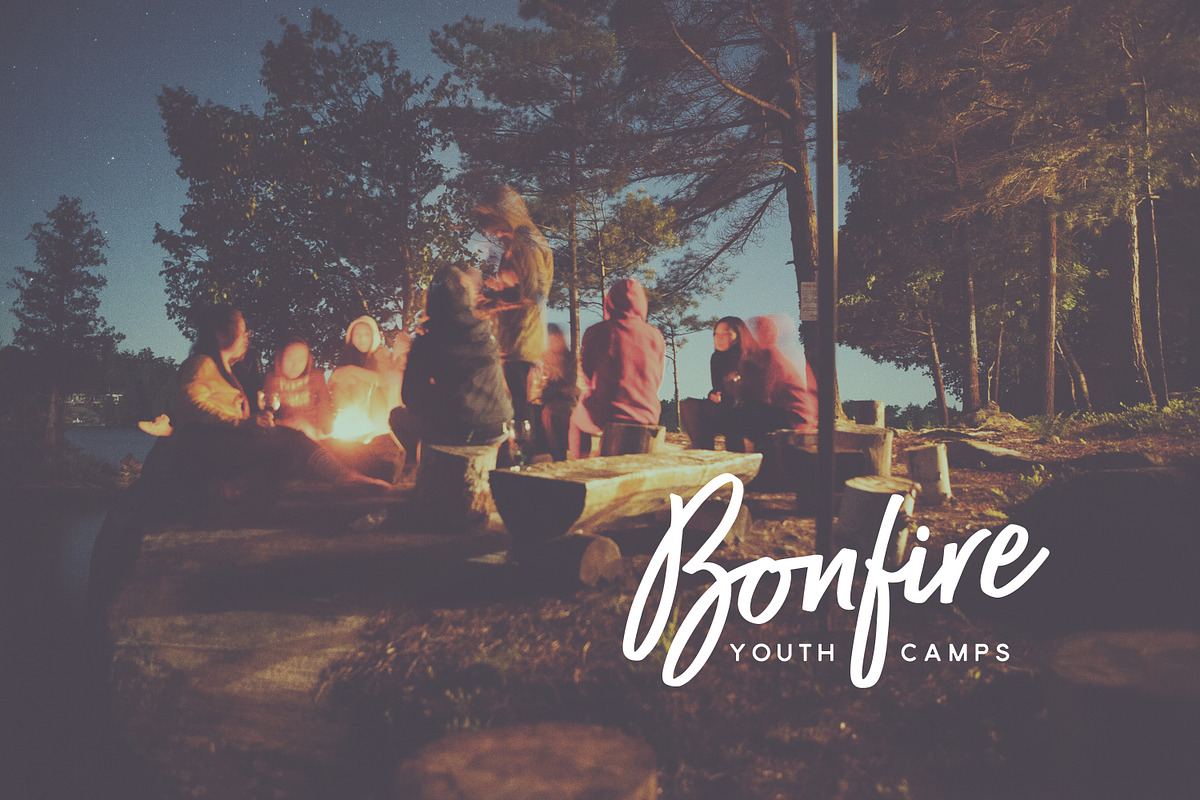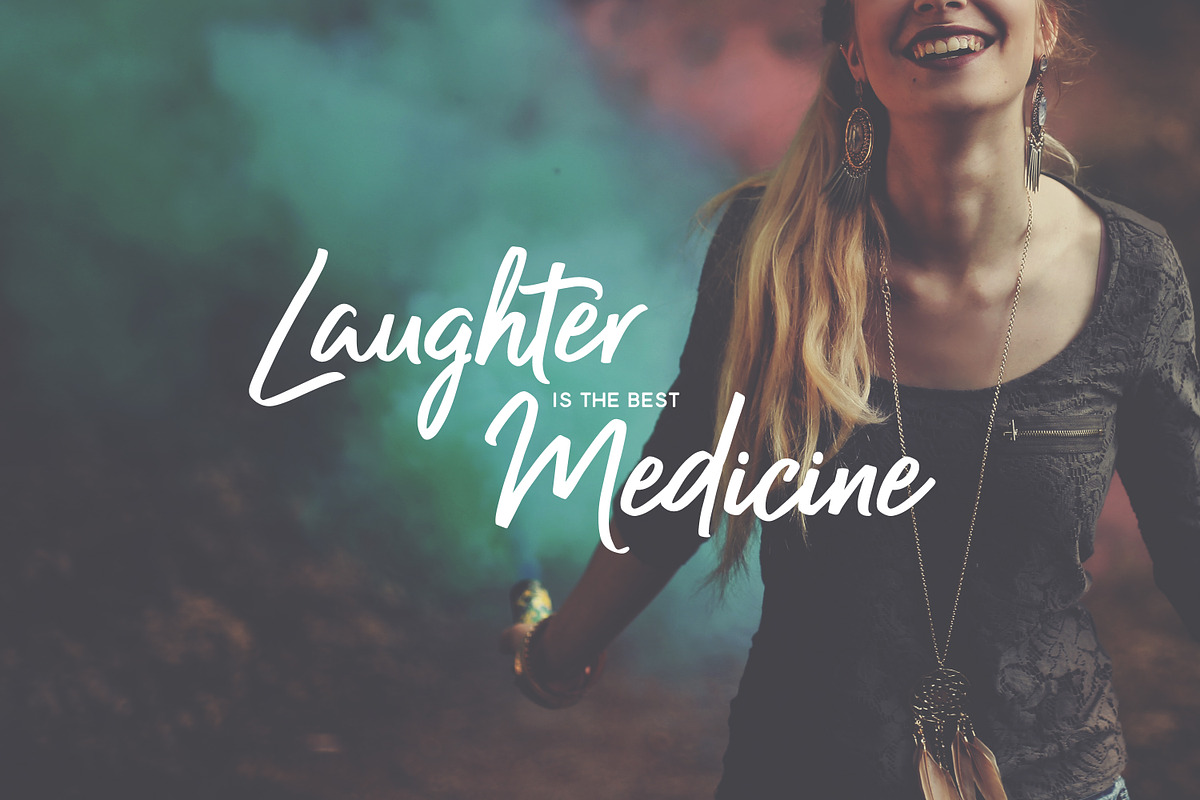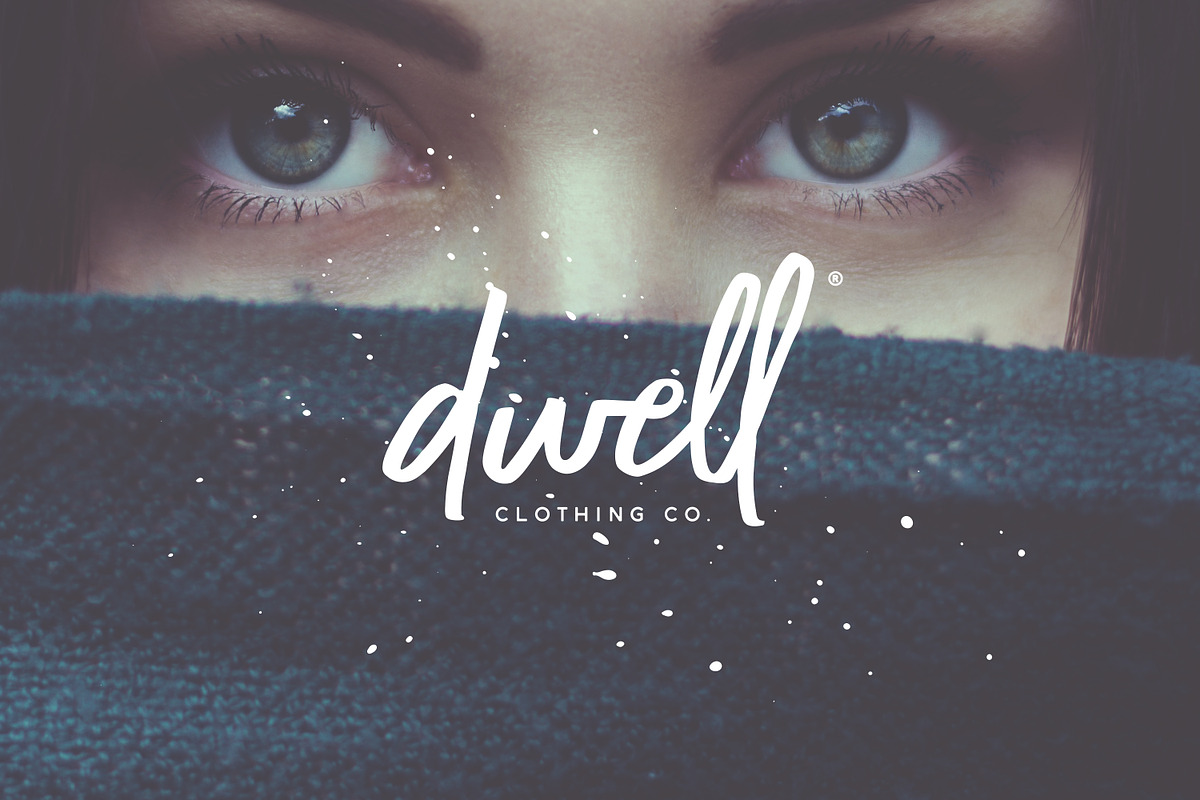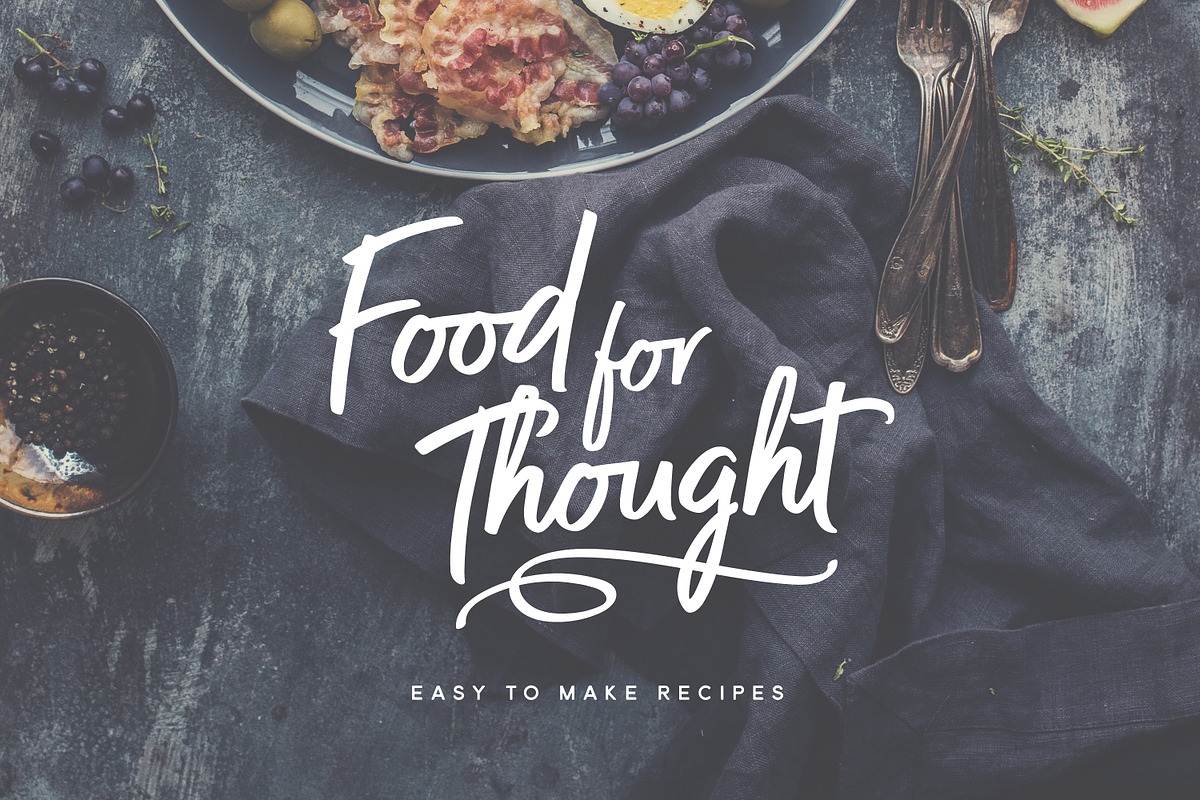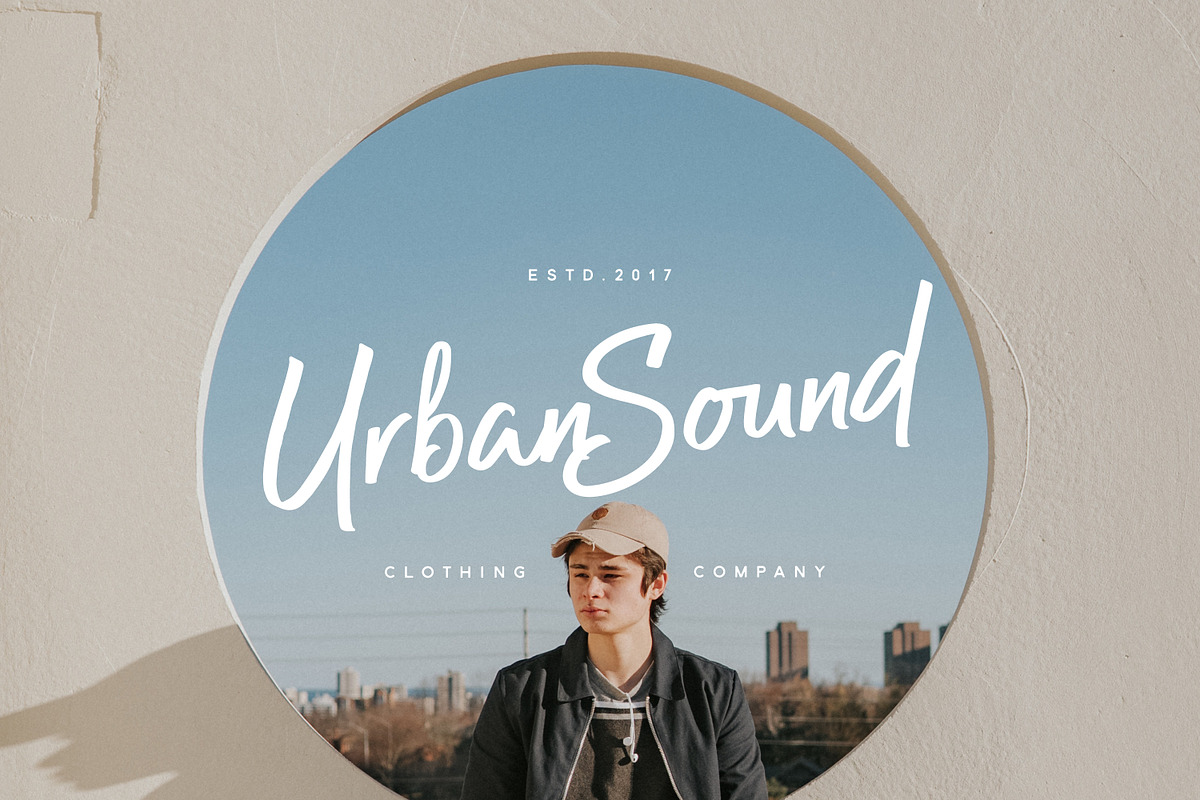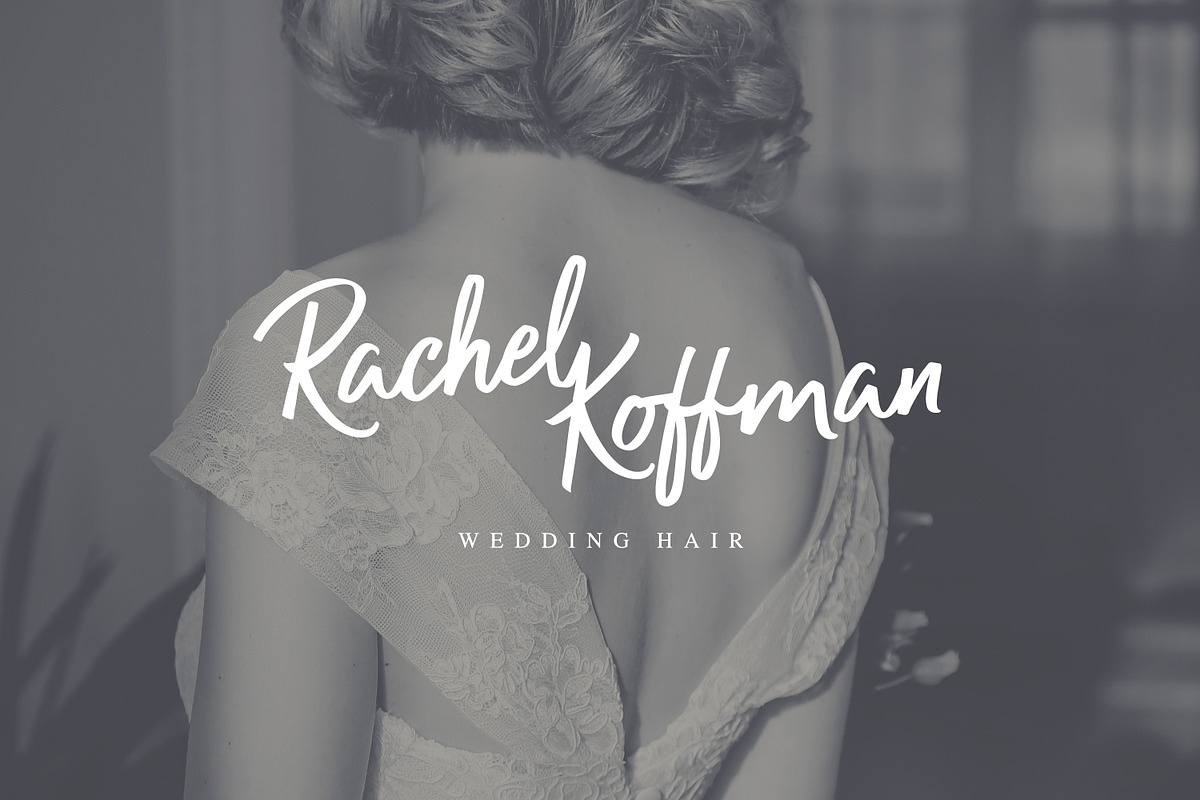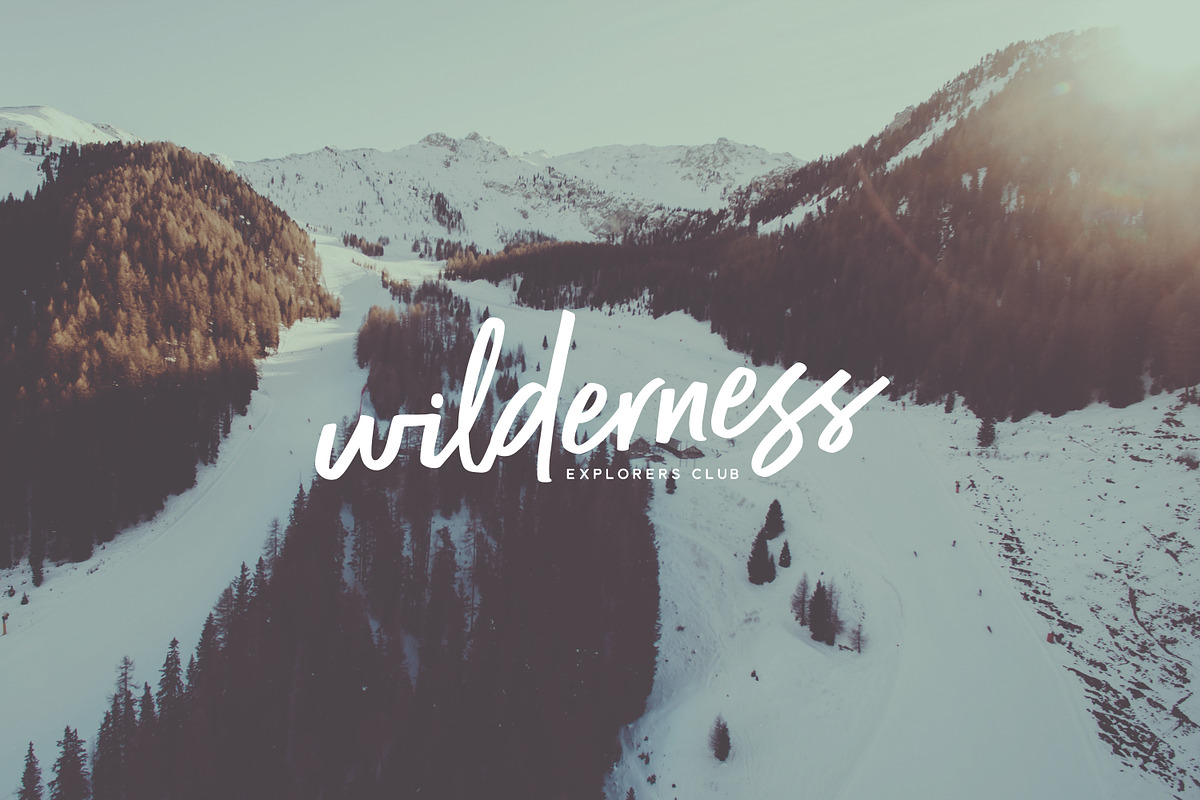
Radiant Beauty - Casual Brush Font
Radiant Beauty - Casual Brush Font by Ian Barnard is a font selected for branding, posters, packaging, typography.
- Includes opentype features for double letters.
- Radiant Beauty Regular
- Radiant Beauty Swashes
Radiant Beauty - Casual Brush Font by Ian Barnard fits naturally into Branding, posters, packaging, typography.